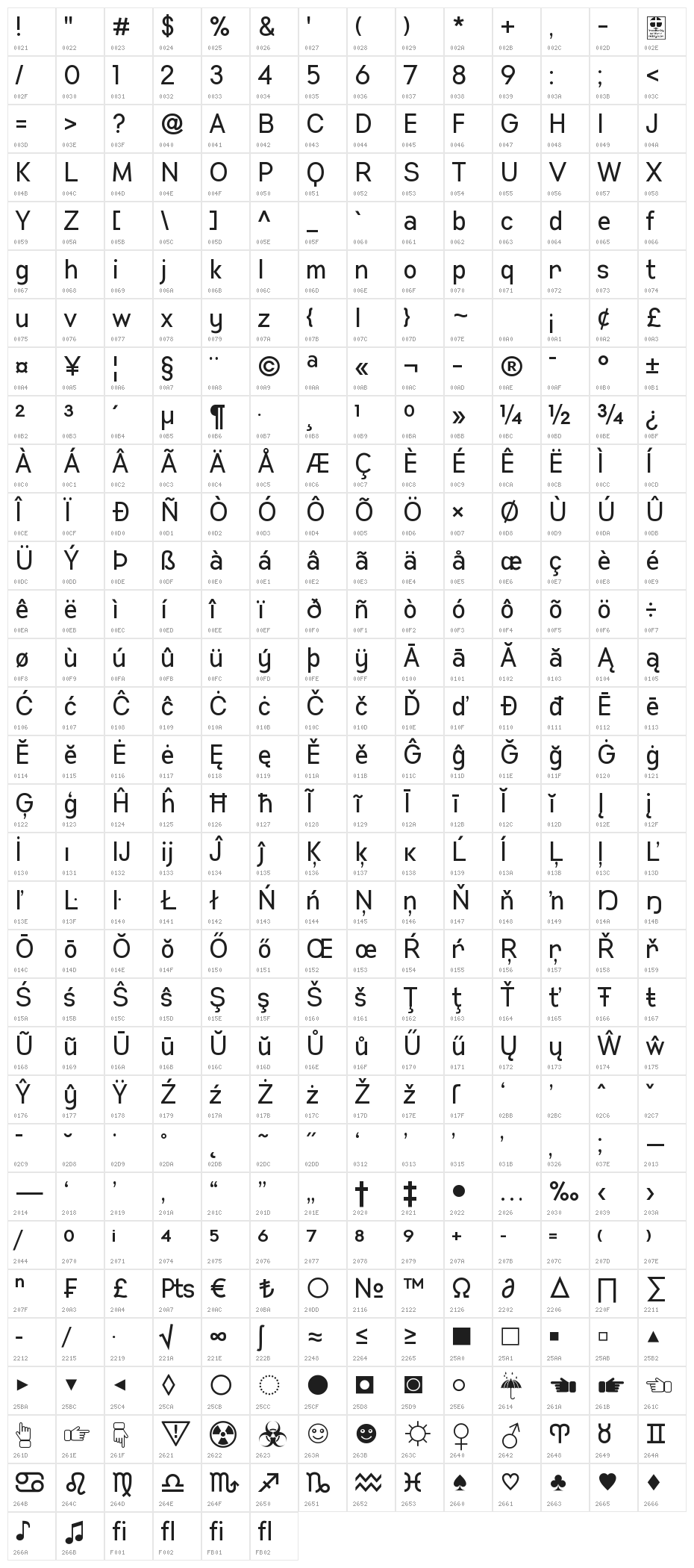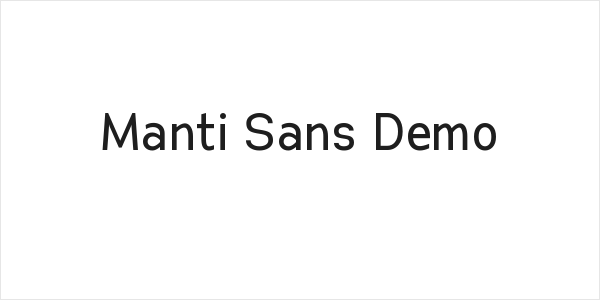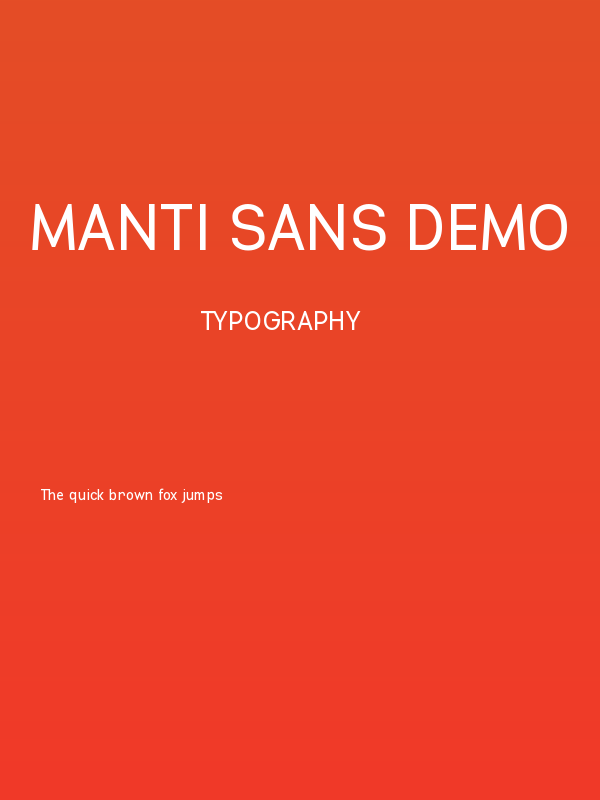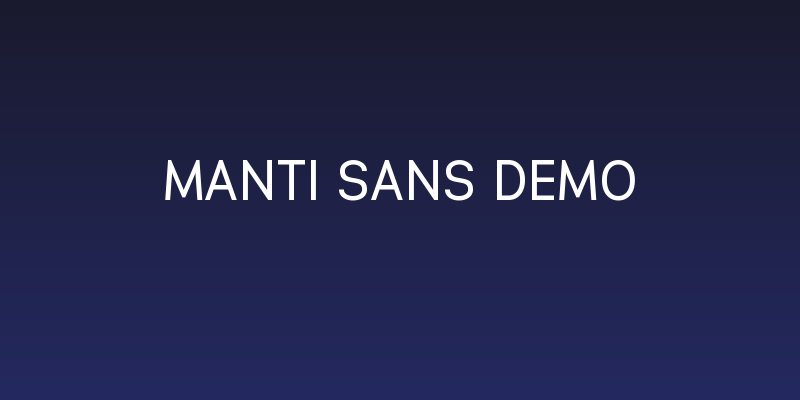
Manti Sans Demo Font
Manti Sans Demo Description
This font features a clean and modern sans-serif style, characterized by its simplicity and readability. The letters are evenly spaced with a consistent stroke width, providing a balanced and harmonious appearance. The uppercase and lowercase letters are well-proportioned, making it suitable for both display and body text. The numerals and special characters maintain the same aesthetic, ensuring uniformity across different uses. Its straightforward design makes it versatile for various applications, from digital to print media.
| Proposed Projects | Ideal for web design, branding, corporate materials, and editorial layouts. |